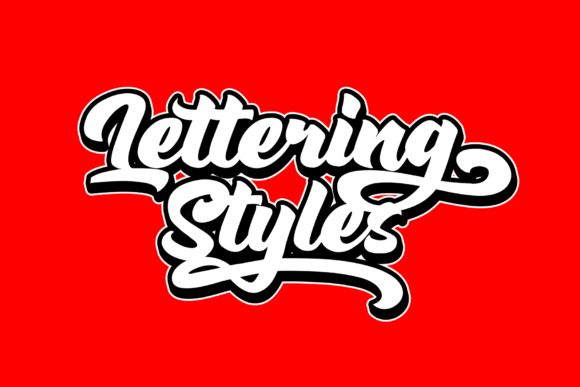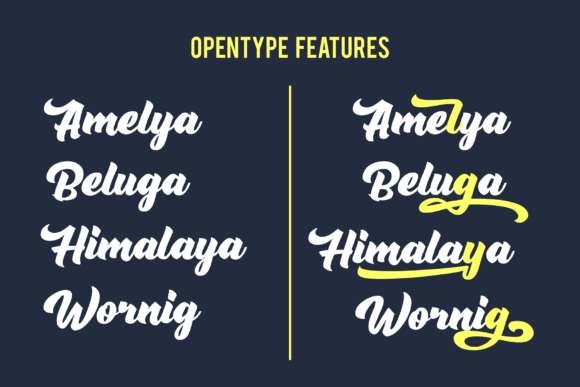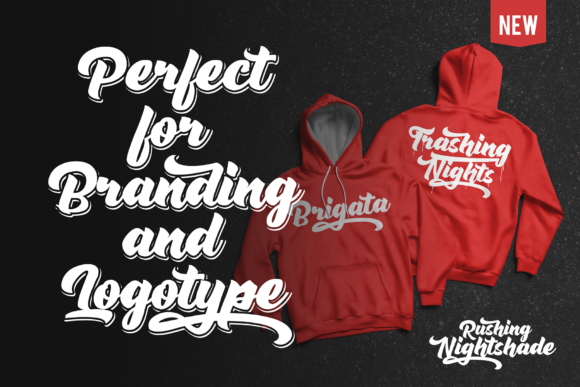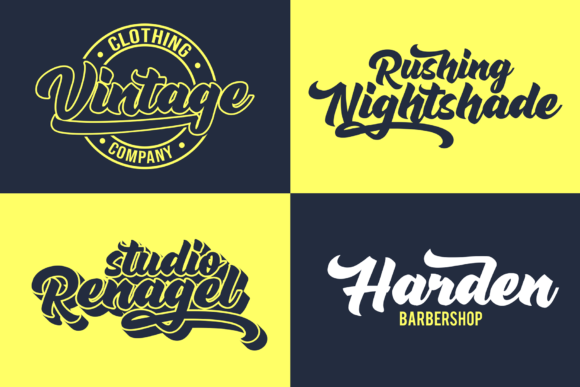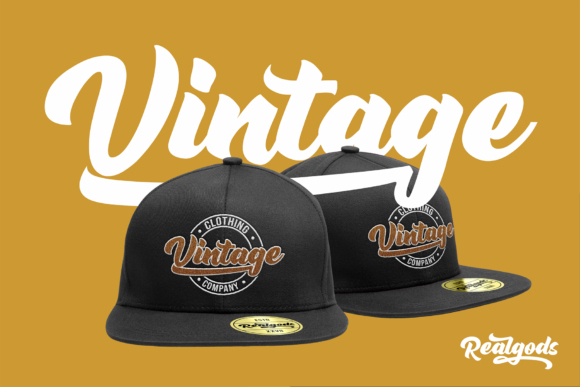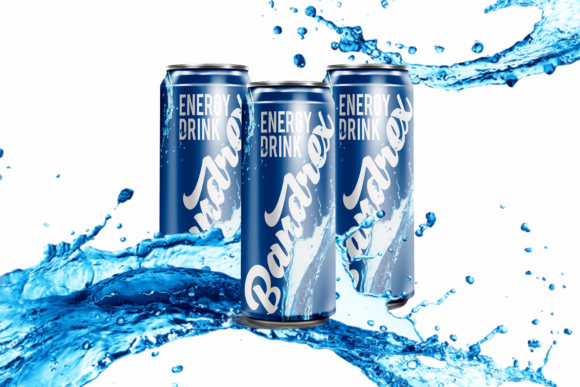
Introduction to Rushing Nightshade Font
Rushing Nightshade is a natural bold script font inspired by vintage aesthetics.
Get inspired by its retro appeal .
Key Features of Rushing Nightshade Font